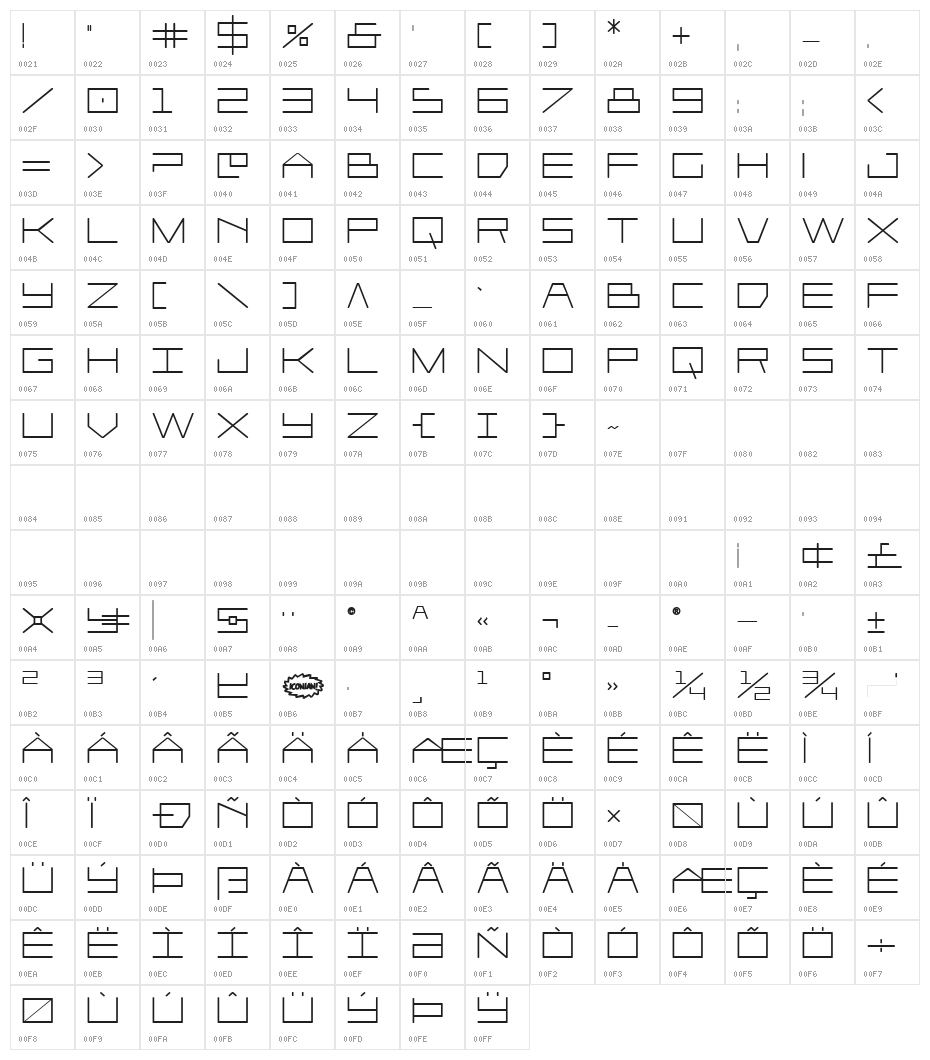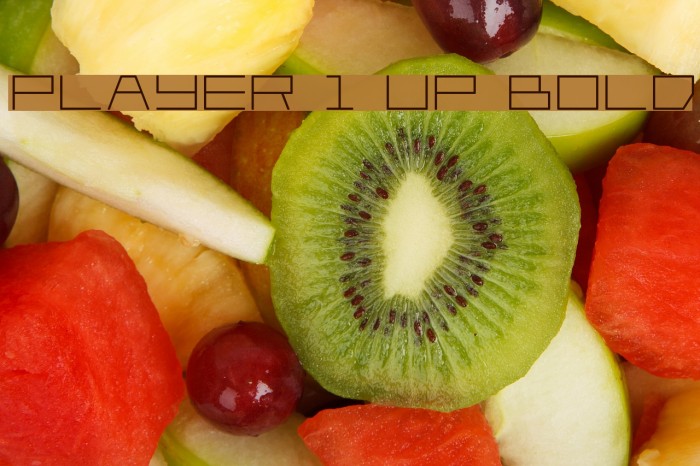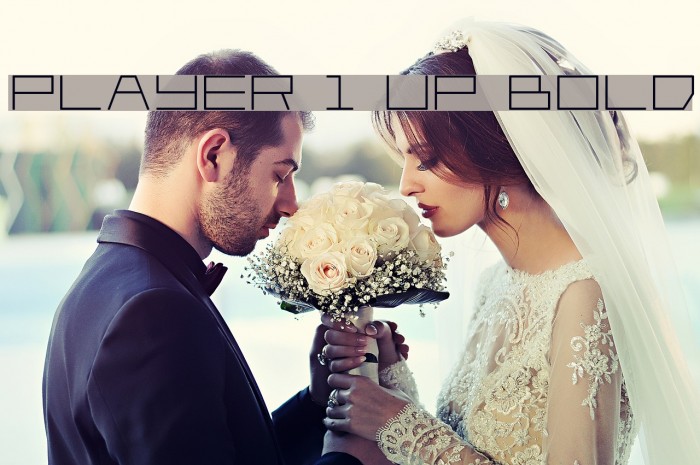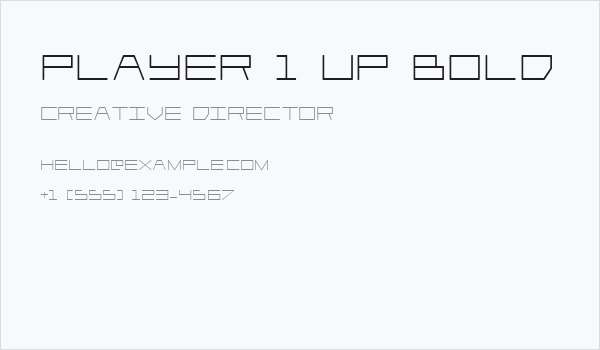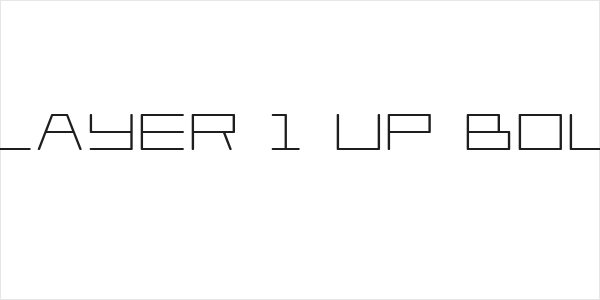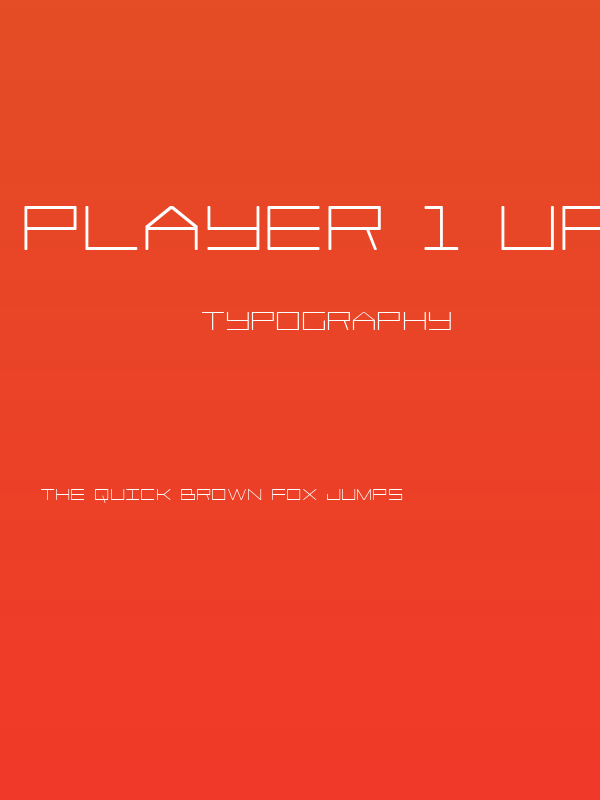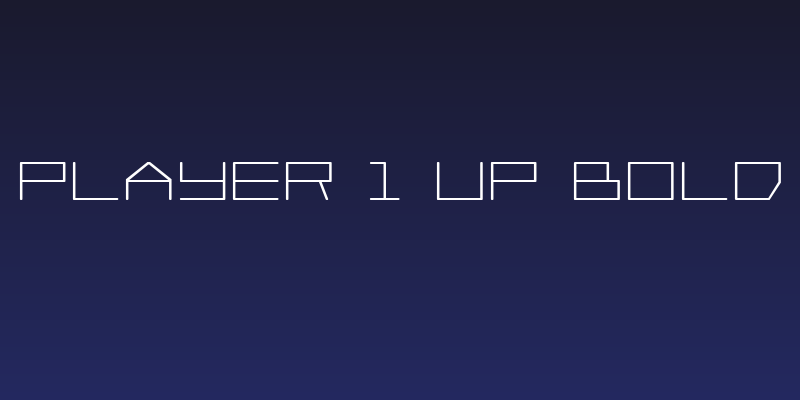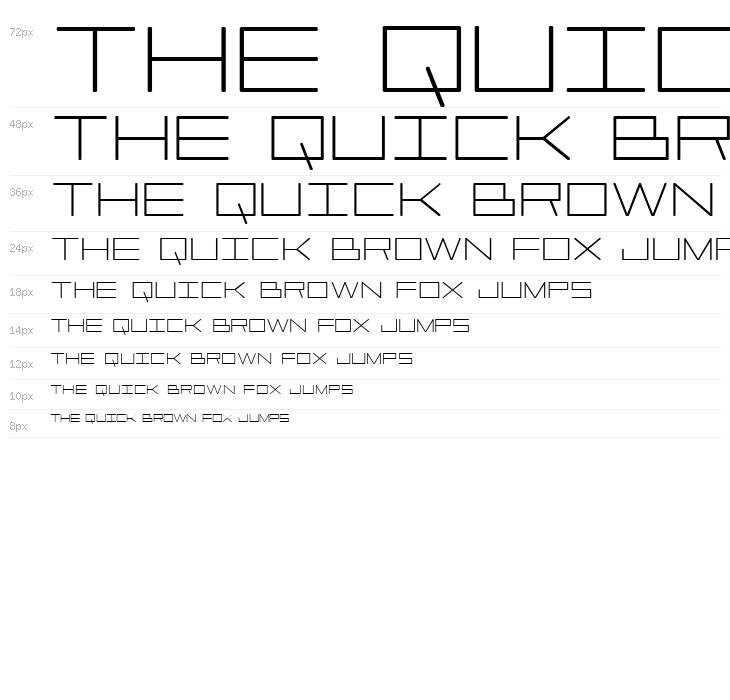
Player 1 Up Bold Font
Player 1 Up Bold Description
This font features a geometric and futuristic design with a distinct digital aesthetic. The characters are constructed with straight lines and sharp angles, giving it a modern and tech-inspired look. The uppercase and lowercase letters maintain a consistent style, with a uniform stroke width that emphasizes its digital roots. The numerals and special characters follow the same design principles, ensuring a cohesive appearance across all glyphs. This font is ideal for projects that require a contemporary and edgy feel, such as video game titles, tech branding, or digital interfaces.
| Proposed Projects | Ideal for video game titles, tech branding, digital interfaces, and modern posters. |